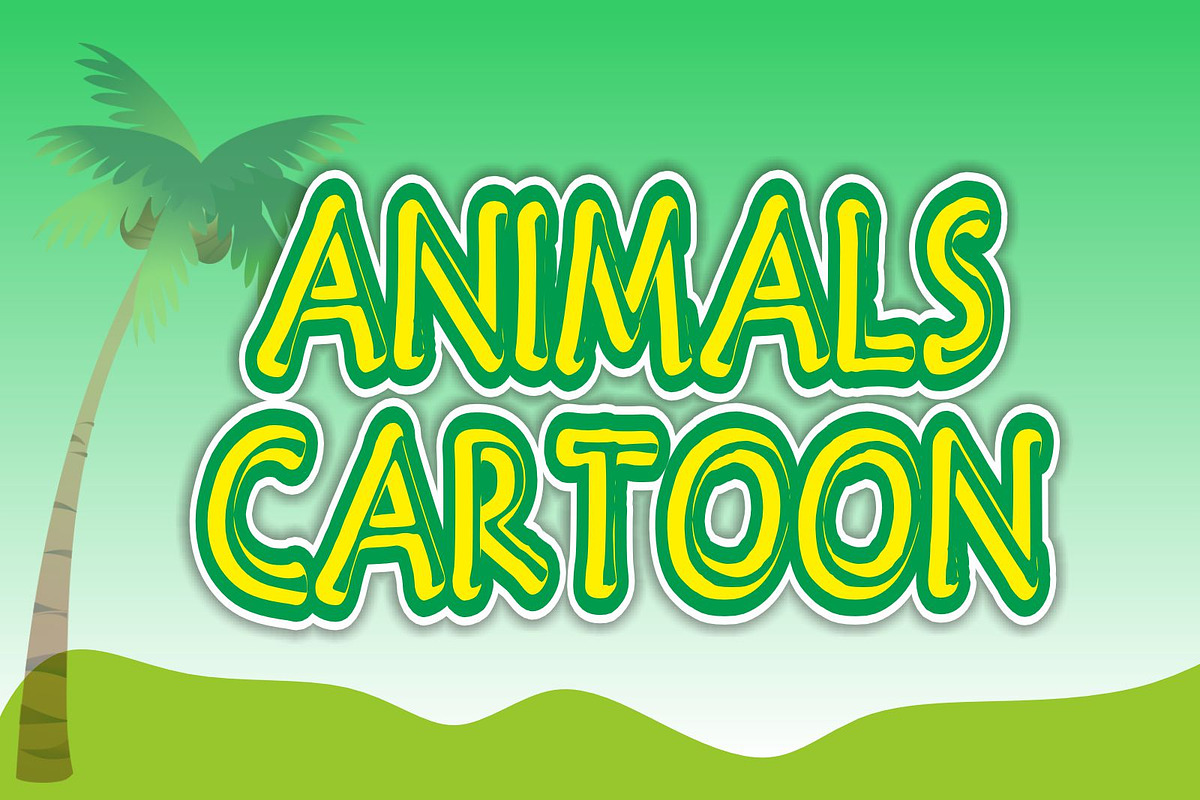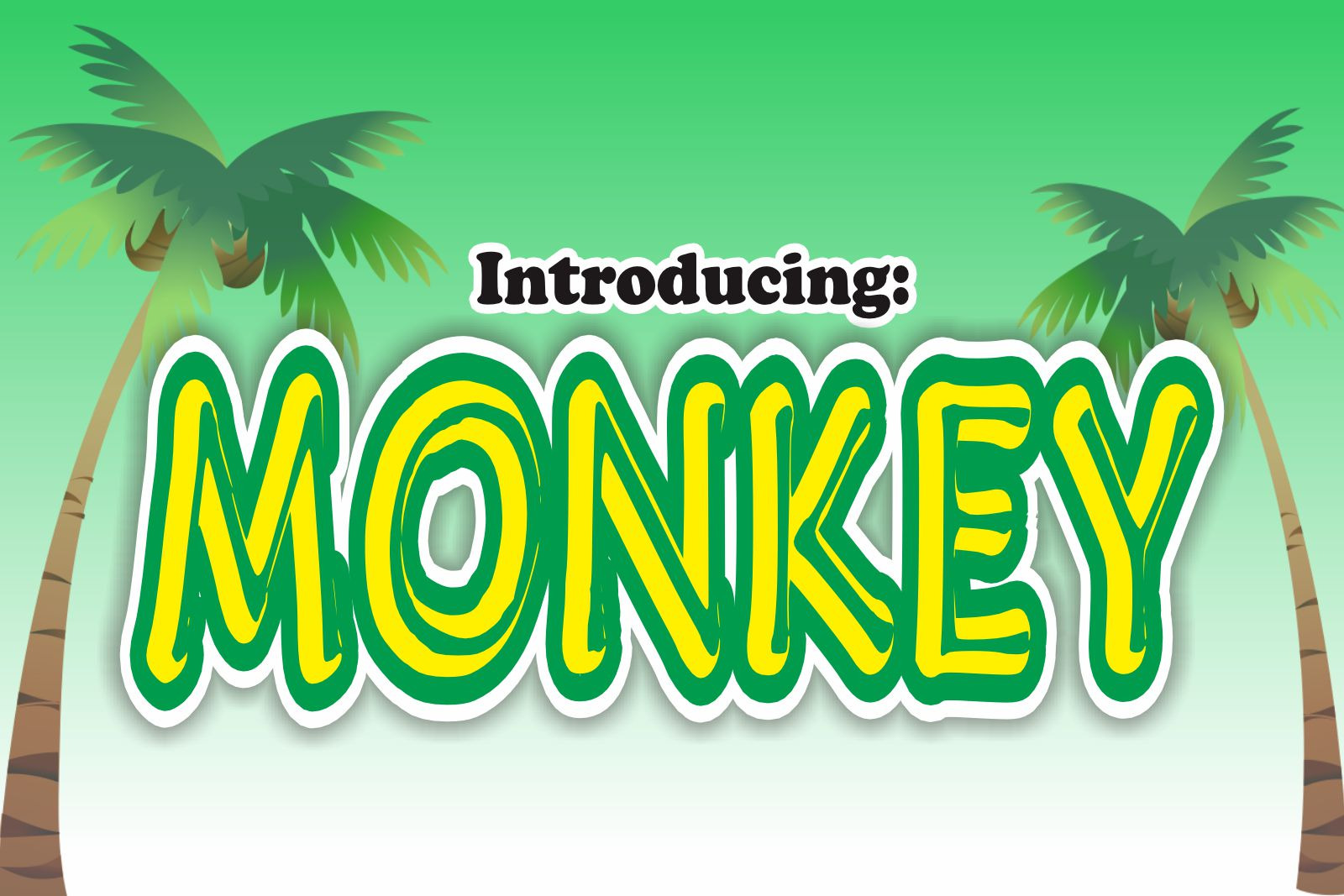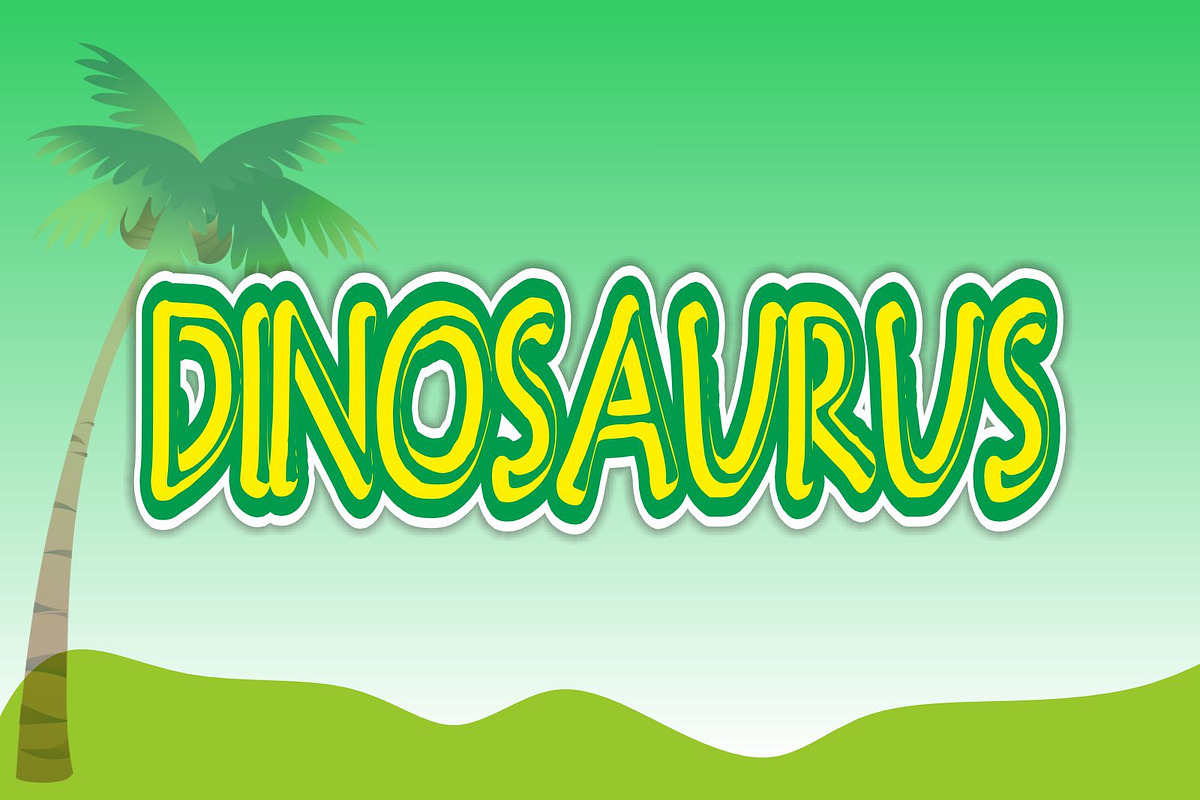
Monkey - Cartoon Font Types
Monkey is a cute and fun font that exudes energy and fun. With lively curves and bright characters, this font adds a touch of retro charm to any design. Whether you’re creating invitations, posters, or social media graphics, Reality Monkey brings a fun, playful feel to your text, making it perfect for projects that need a little animal touch. Get ready to have fun and let your creativity soar with charming charm.